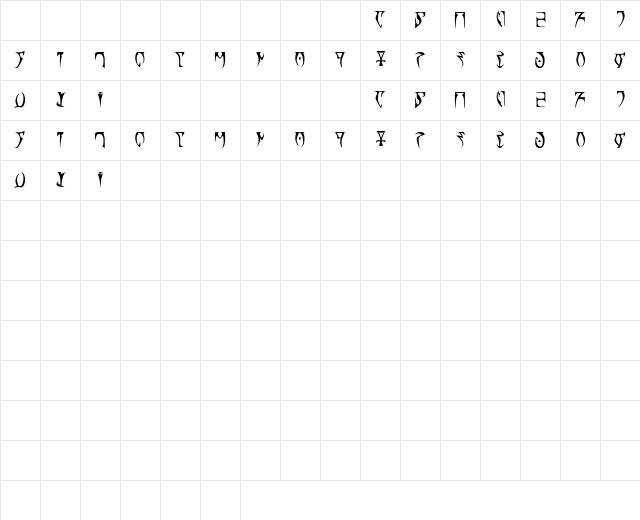
Runes - The elder scroll Regular Free Font
Runes - The elder scroll Regular
Design Context for Runes - The elder scroll
Runes - The elder scroll is a composed and adaptable typeface that performs quietly and consistently across a wide range of design contexts.